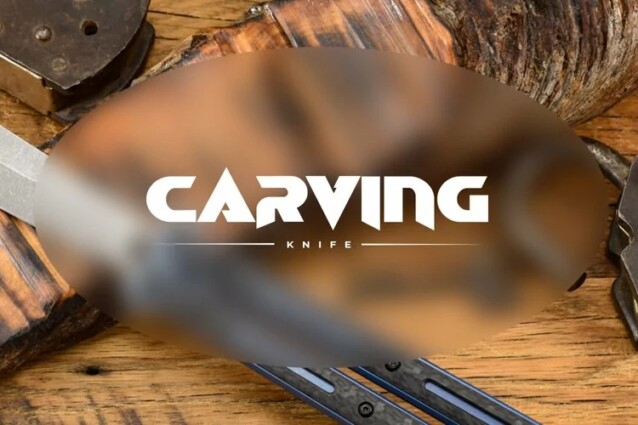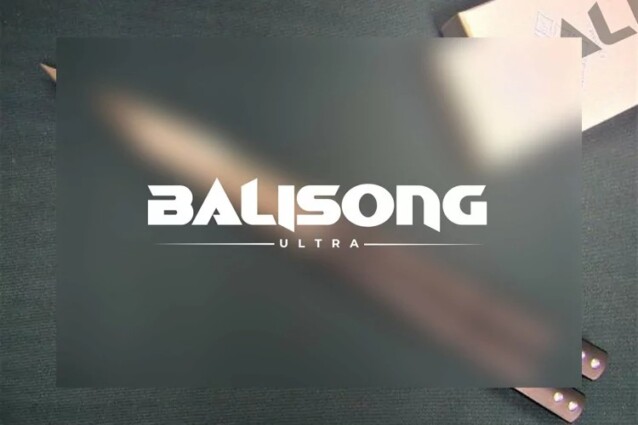
Balisong Font
Balisong Font is a modern display font built specifically for sports branding, headline, and more prominent typography needs. This typeface is great for logos, titles, signs, labels, brandings and more. This versatile and striking font family combines modern aesthetics with a touch of timeless elegance, offering designers a range of creative possibilities.